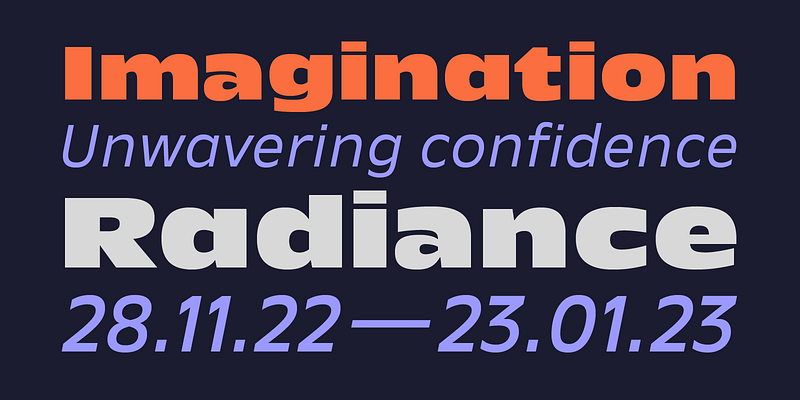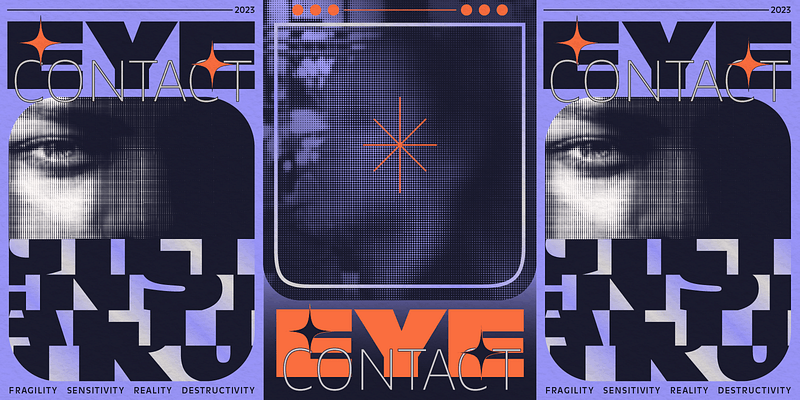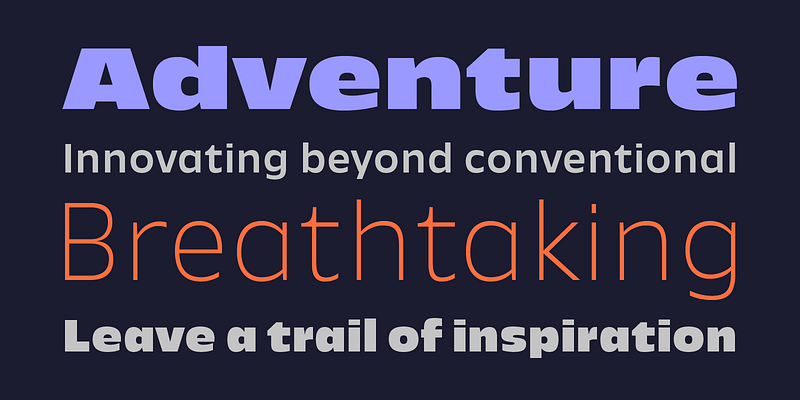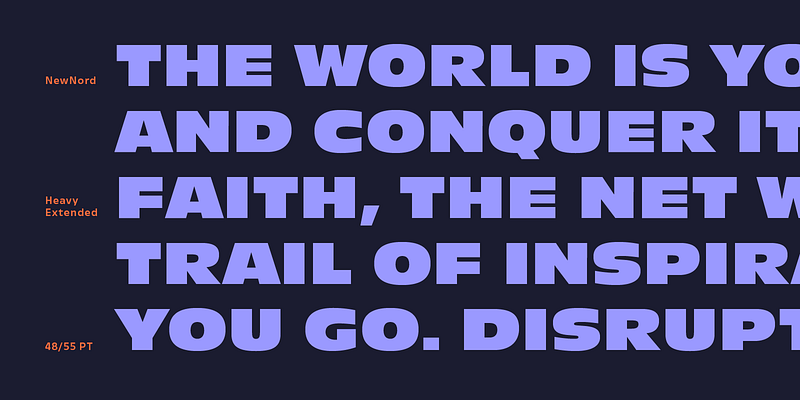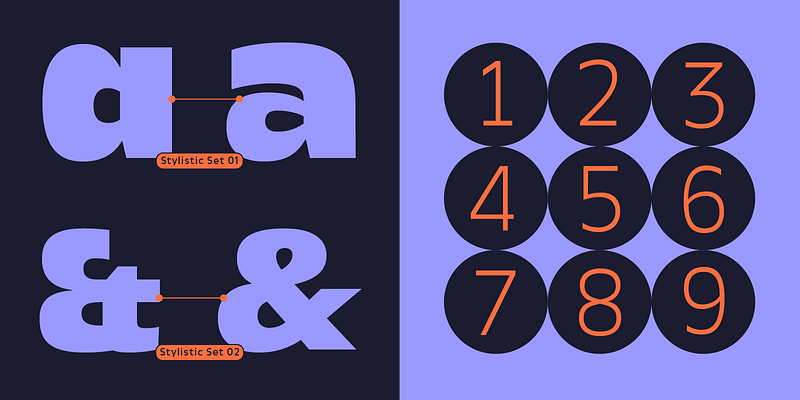
Reliable and sure-footed, New Nord carries your message on its strong shoulders. Open apertures, a modest x-height, and a strong horizontal impetus guarantee dynamic, perfectly legible text in all sizes.